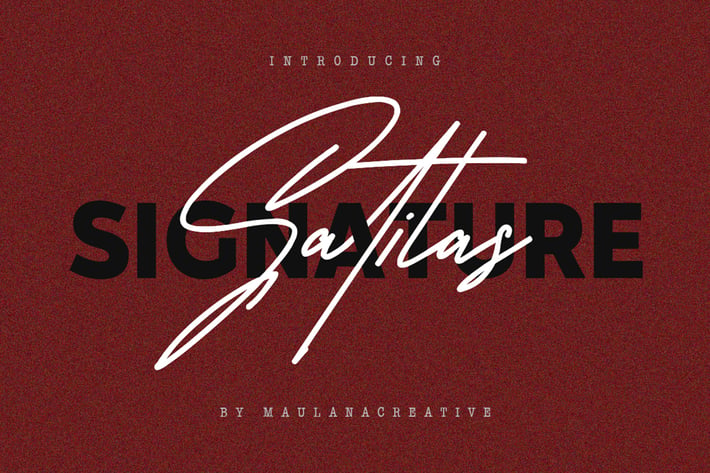
Satilas Signature Font - Free Sans
Satilas Signature
Give your designs an authentic handcrafted feel. "Satilas" is perfectly suited to signature, stationery, logo, typography quotes, magazine or book cover, website header, clothing, branding, packaging design and more.